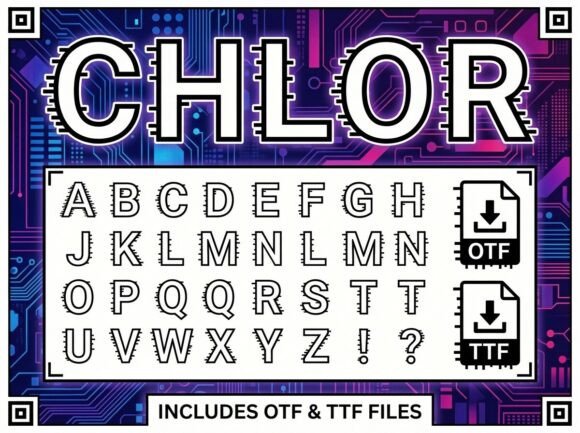
Introducing Chlor Font: The Ultimate Choice for Modern Tech Designs
In the world of design, typography plays a crucial role in conveying the message and aesthetic of a brand. For designers and crafters looking for a font that embodies the spirit of modern technology, Chlor Font is the perfect choice. This technical display typeface is designed to capture the essence of a “modular-and-modern” soul, making it ideal for independent tech branding, creative coding logos, industrial editorial layouts, and high-impact social media headers.
Unique Characteristics of Chlor Font
Chlor Font features bold, hollow geometric letterforms that are uniquely characterized by rhythmic, hand-drawn “circuit” notches and horizontal terminal bars integrated into the left side of every character. This distinctive design element gives Chlor its digital personality and sets it apart from other fonts in the market. The balanced structural weight of Chlor ensures that it remains legible and visually appealing, even at large sizes.
Key Features of Chlor Font
- Modular and Modern Design: Chlor Font is designed to reflect the modular and modern aesthetic of technology, making it perfect for tech-related brands and projects.
- Bold and Hollow Geometric Letterforms: The font features bold, hollow letterforms that provide a clean and futuristic look.
- Rhythmic, Hand-Drawn “Circuit” Notches: The unique “circuit” notches add a touch of personality to the font, giving it a humanized feel.
- Horizontal Terminal Bars: The horizontal terminal bars integrated into the left side of every character add a sense of structure and balance to the font.
- Balanced Structural Weight: Chlor Font has a balanced structural weight that ensures legibility and visual appeal.
Use Cases for Chlor Font
Chlor Font is a versatile typeface that can be used in a variety of design projects, including:
- Independent Tech Branding: Chlor Font is perfect for tech startups and companies looking for a modern and bold font to represent their brand.
- Creative Coding Logos: The font’s unique design elements make it ideal for coding and programming-related logos.
- Industrial Editorial Layouts: Chlor Font can be used in editorial layouts to add a touch of modernity and sophistication.
- High-Impact Social Media Headers: The font’s bold and eye-catching design makes it perfect for social media headers that require high impact and visual appeal.
Why Choose Chlor Font?
Chlor Font is the premier choice for designers and crafters looking for a font that embodies the spirit of modern technology. Its unique design elements, balanced structural weight, and digital personality make it the perfect choice for a variety of design projects. With Chlor Font, you can:
- Elevate Your Brand: Give your brand a modern and bold look with Chlor Font.
- Stand Out from the Crowd: The font’s unique design elements ensure that your design project stands out from the crowd.
- Convey a Sense of Technology: Chlor Font is designed to convey a sense of modern technology, making it perfect for tech-related projects.
In conclusion, Chlor Font is a technical display typeface that is designed to capture the essence of a “modular-and-modern” soul. Its unique design elements, balanced structural weight, and digital personality make it the perfect choice for independent tech branding, creative coding logos, industrial editorial layouts, and high-impact social media headers. With Chlor Font, designers and crafters can elevate their brand, stand out from the crowd, and convey a sense of modern technology.